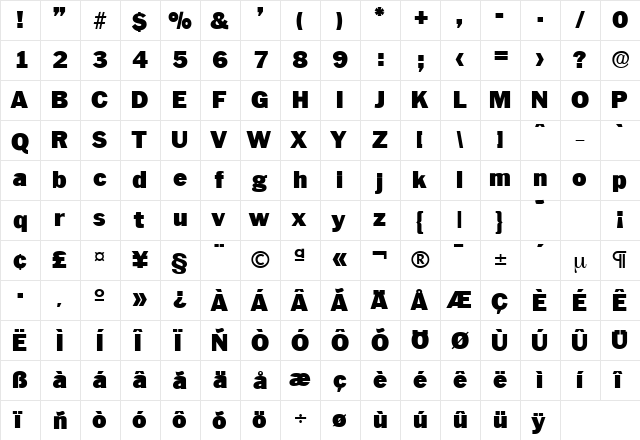
Plymouth-Serial-Black Regular
Design Context for Plymouth-Serial-Black Typeface
Plymouth-Serial-Black takes a measured approach to typography — its balanced proportions and neutral character make it a reliable workhorse for both digital and print work.